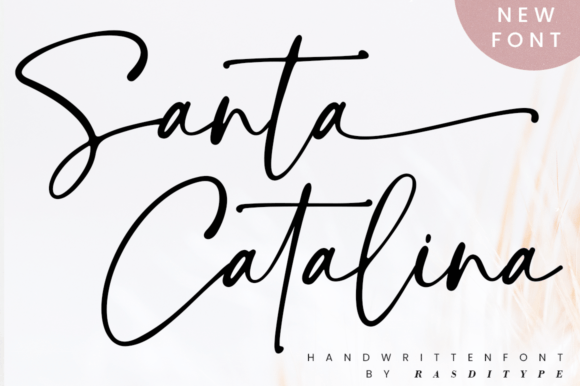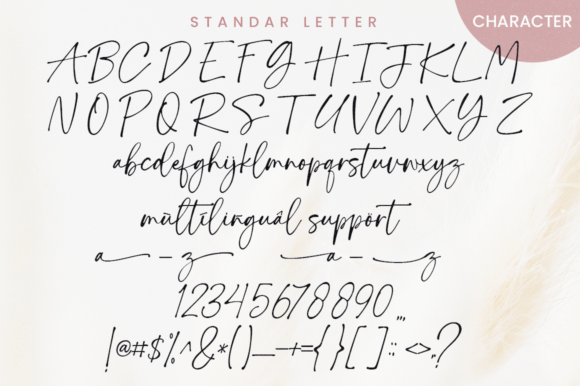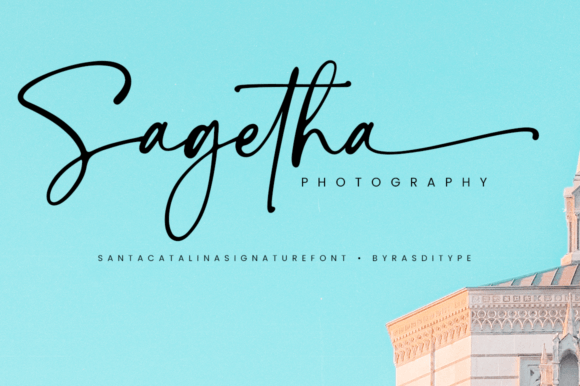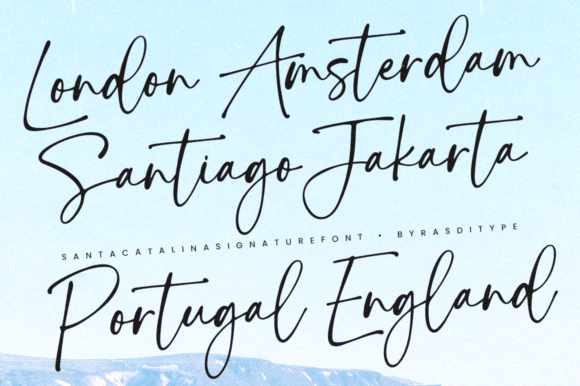
Santa Catalina Font
About the Santa Catalina Font
Step up your design game with Santa Catalina Font, a font that exudes confidence and style. Santa Catalina is a beautiful handwritten font ideal for logos, wedding stationery, photography watermarks, modern websites, and more. Fall in love with its incredibly distinct and timeless style, and use it to create spectacular designs!
Santa Catalina Font Usage Examples
Santa Catalina Font Example